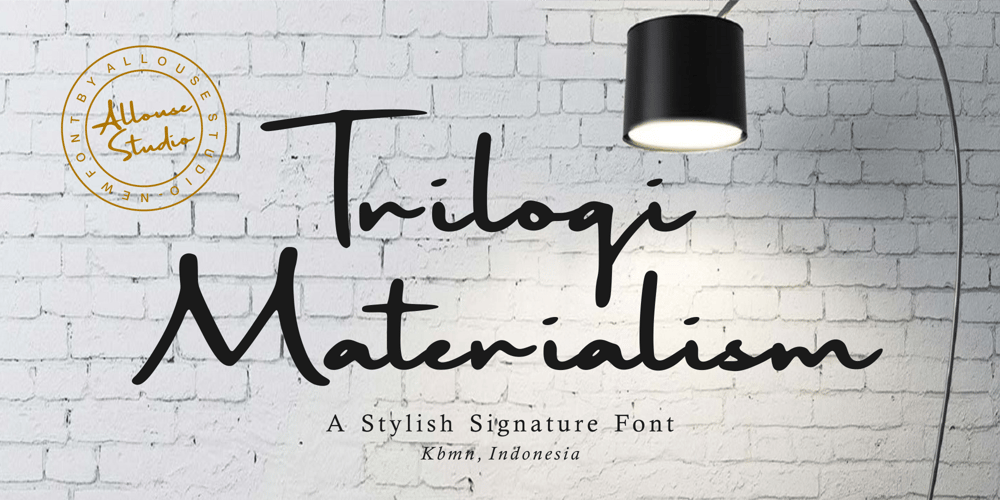
Trilogi Materialism
Trilogi Materialism font
Trilogi Materialism Font Family was designed by Fachrizal Yusuf and published by Allouse Studio. Trilogi Materialism contains 1 styles and family package options. Proudly Presenting, Trilogi Materialism A Stylish Signature Font.Trilogi Materialism is perfect for any titles, logo, product packaging, branding project, megazine, social media, wedding, or just used to express words above the background.Trilogi Materialism also come with Multi-Lingual Support.Enjoy the font, feel free to comment or feedback, send me PM or email. Thank You!